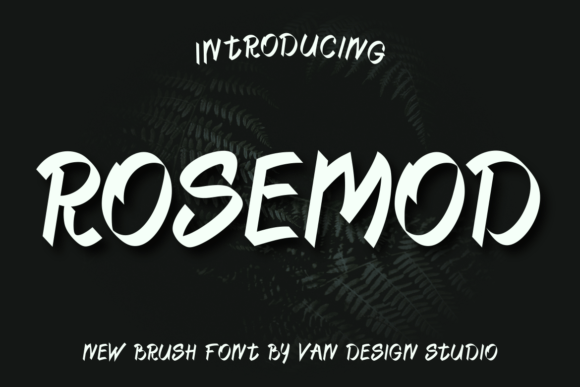
Dive into the world of sophistication and charm with Rosemod, a captivating script font that dances across designs like a breath of fresh air. Its delicate strokes and flowing curves add an undeniable flair to any project, leaving a lasting impression on your audience.
Unleash your creativity with Rosemod and watch as your words transform into works of art. Its versatility knows no bounds, allowing you to effortlessly elevate invitations, branding, website designs, and social media posts. Let Rosemod be your muse as you craft designs that speak volumes.
Transport yourself to a bygone era of elegance with Rosemod. Its timeless charm evokes a sense of nostalgia, making it the perfect choice for vintage-inspired designs. Create enchanting wedding invitations that capture the essence of romance or design captivating posters that transport viewers to a world of dreams.
With Rosemod, express yourself in a way that resonates with your audience. Its graceful lines and sweeping strokes add a touch of class to any project, leaving a lasting impression on all who encounter it. Make your mark on the world with Rosemod, the epitome of beauty and artistry.